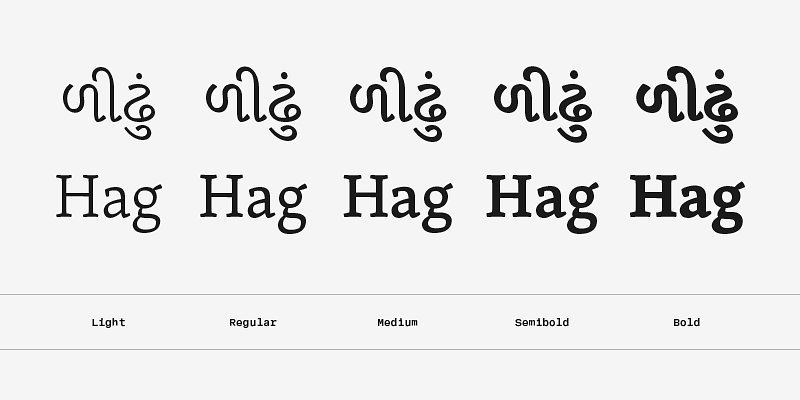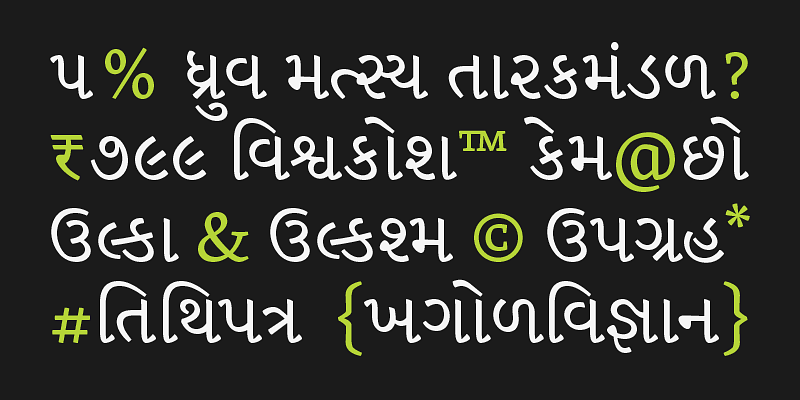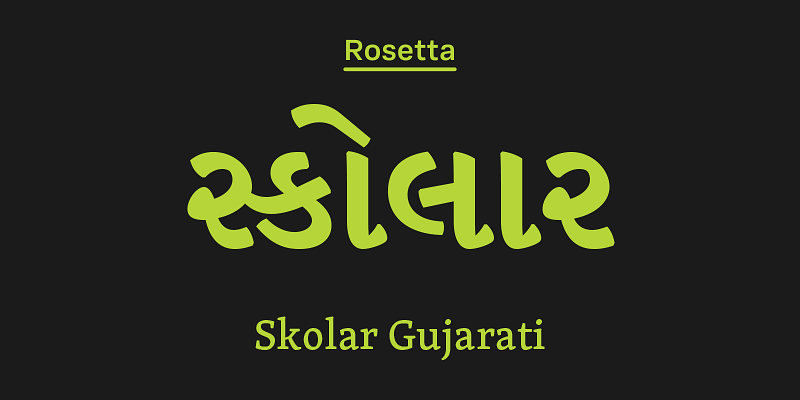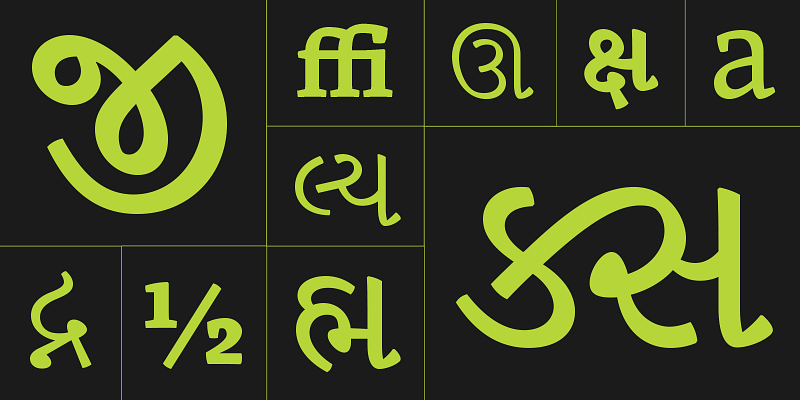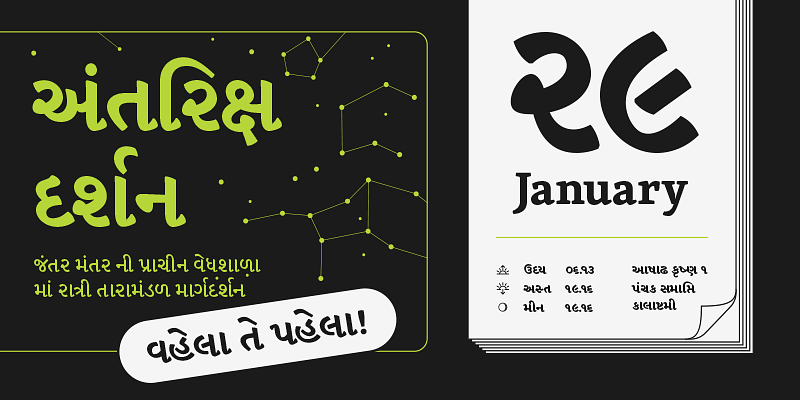
Skolar Gujarati is a hardy text typeface built to attend to the rigors of academic and scholarly typography. It provides Skolar’s serious typesetting capability with a hint of individual style, but devised for the needs of Gujarati typesetting.